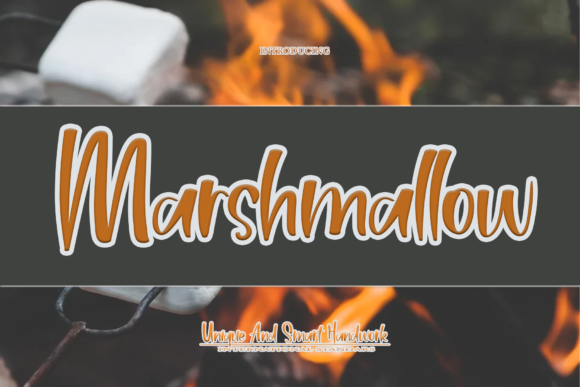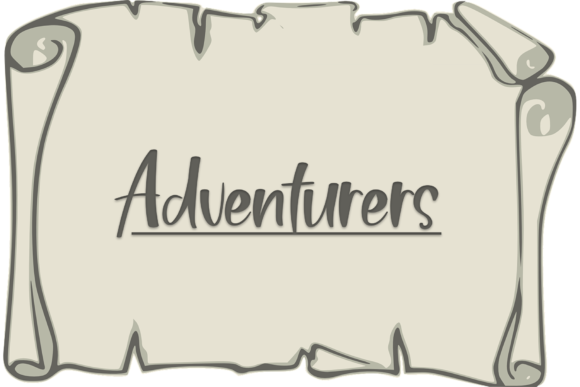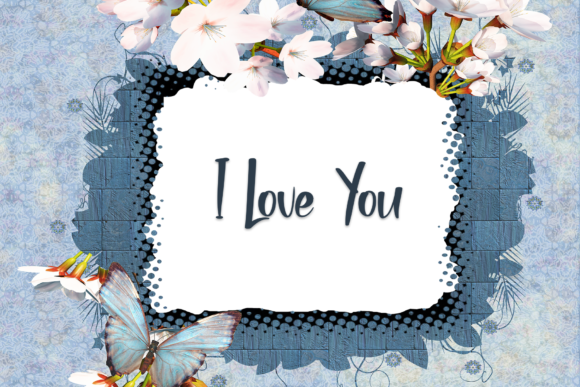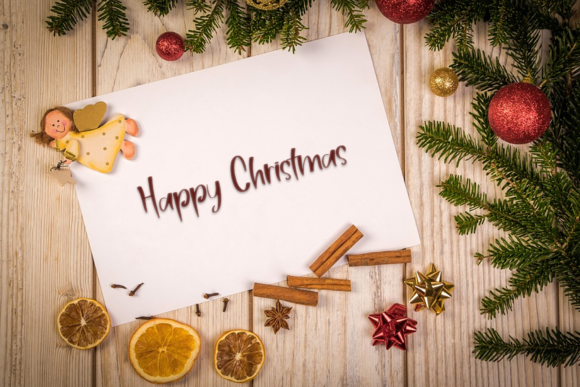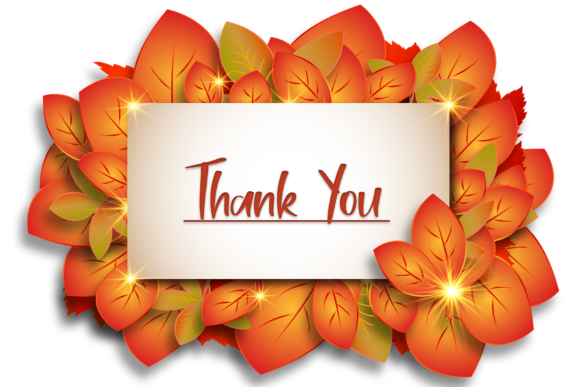
Marshmallow Font
About Marshmallow Font
Marshmallow is a lovely and delicate script font that exudes elegance and class. This font was particularly crafted for those who need a beautiful and refreshing look to their designs.